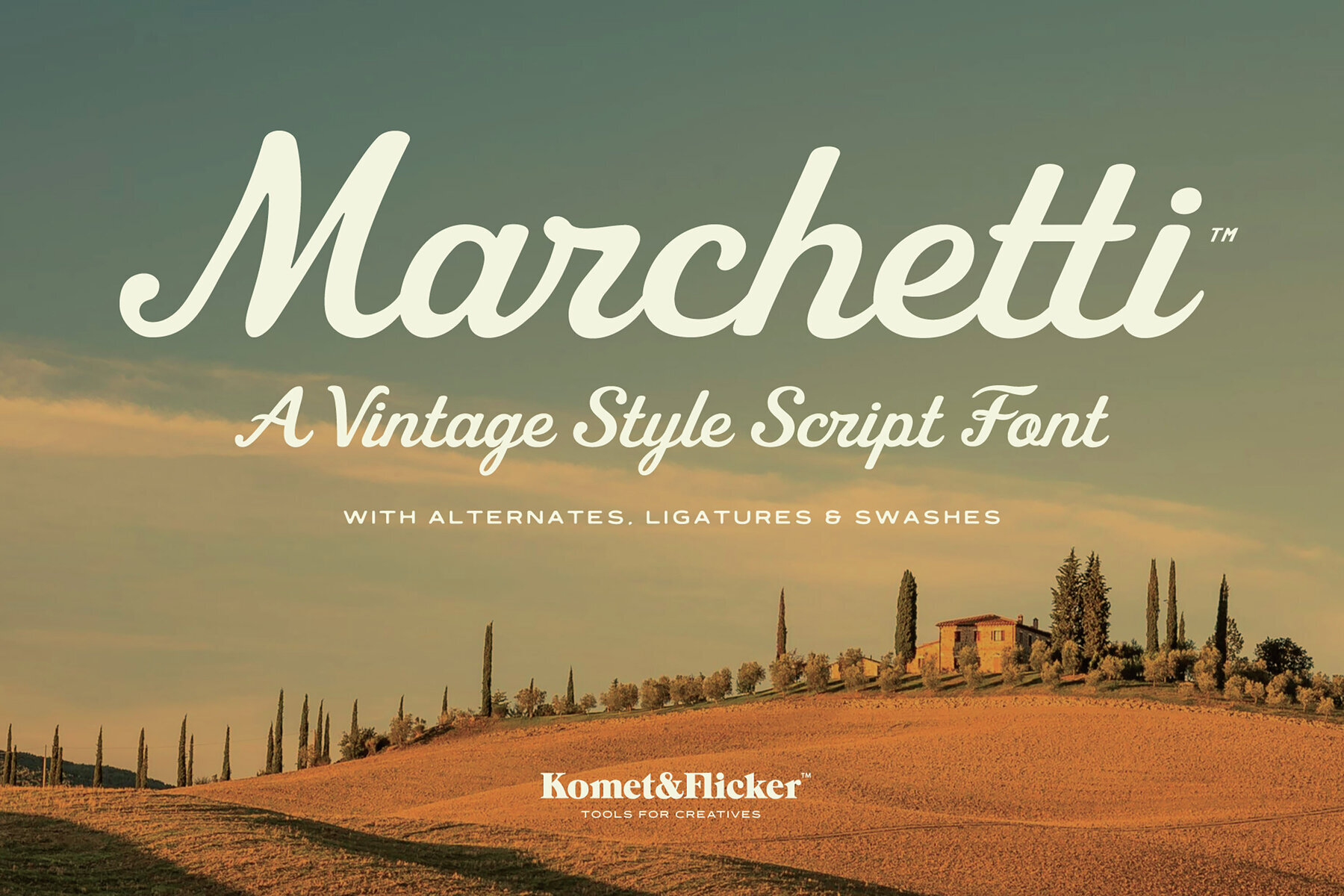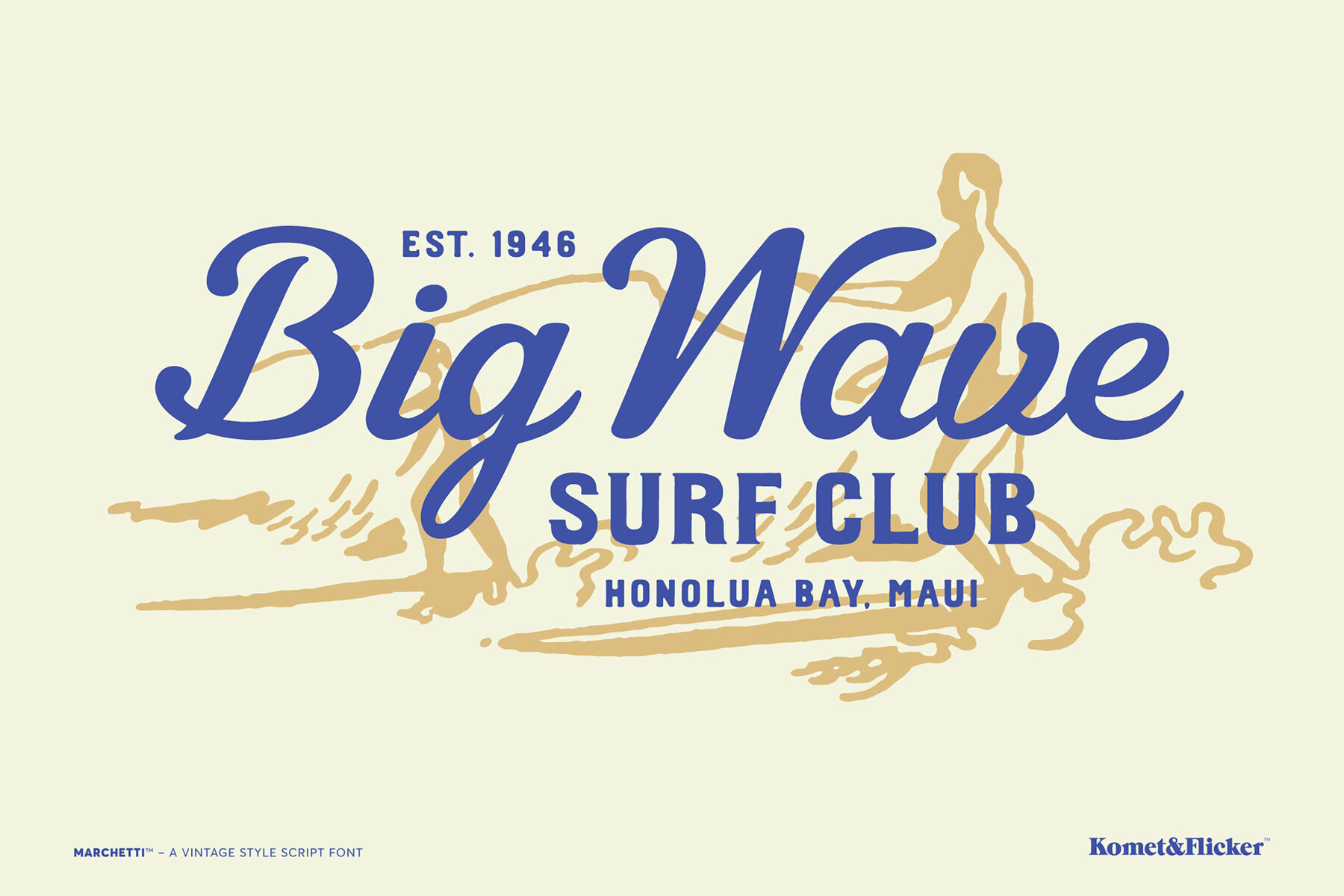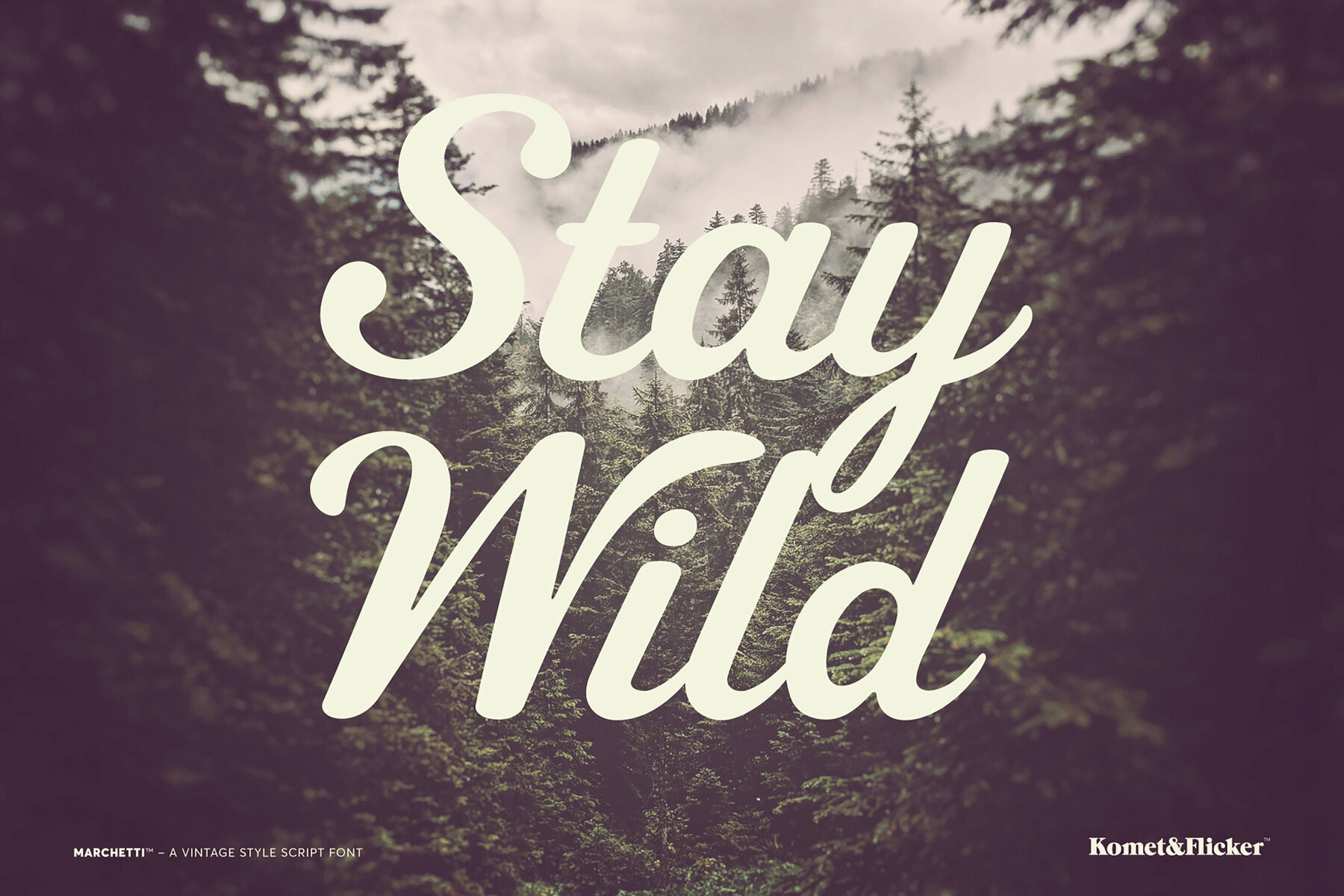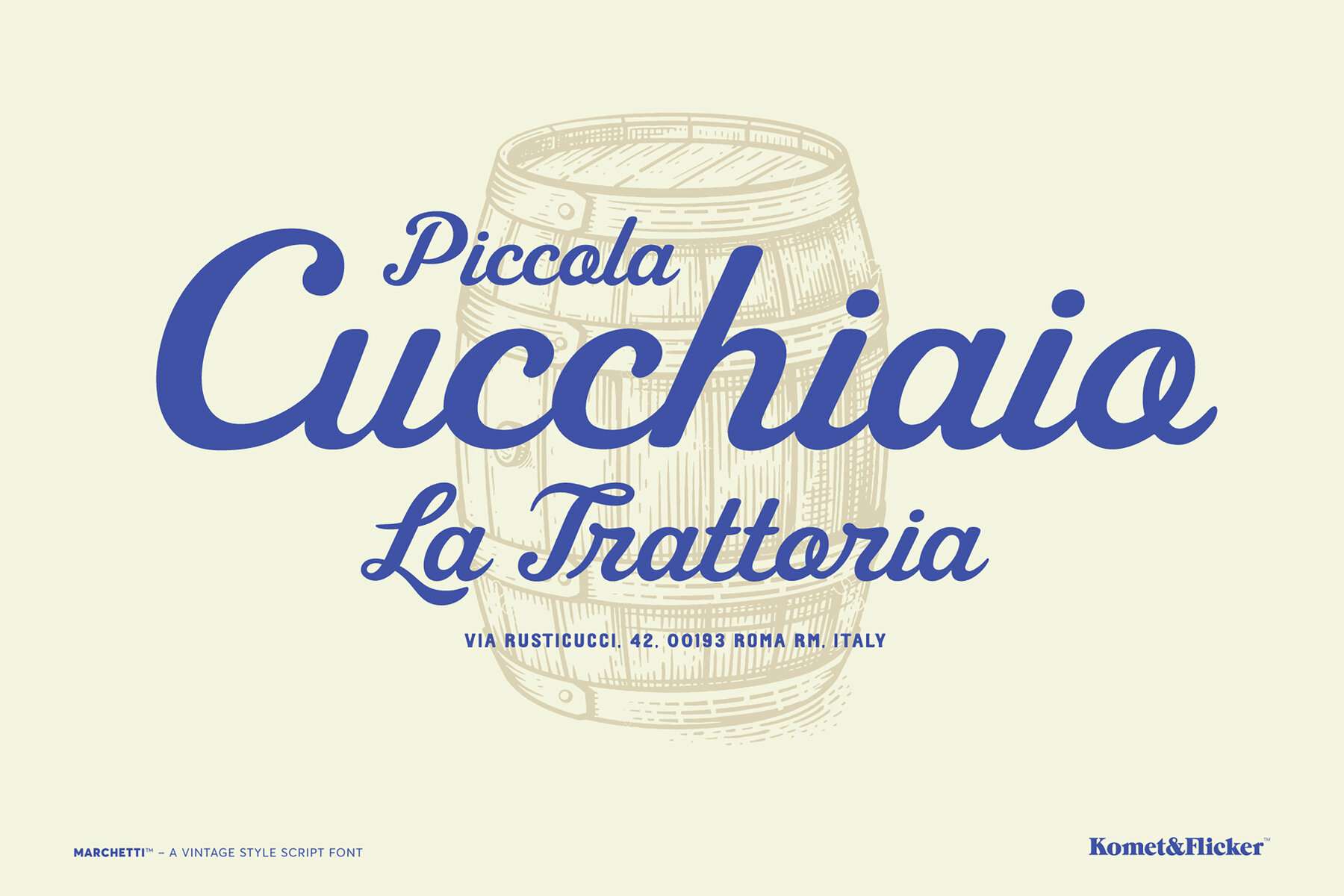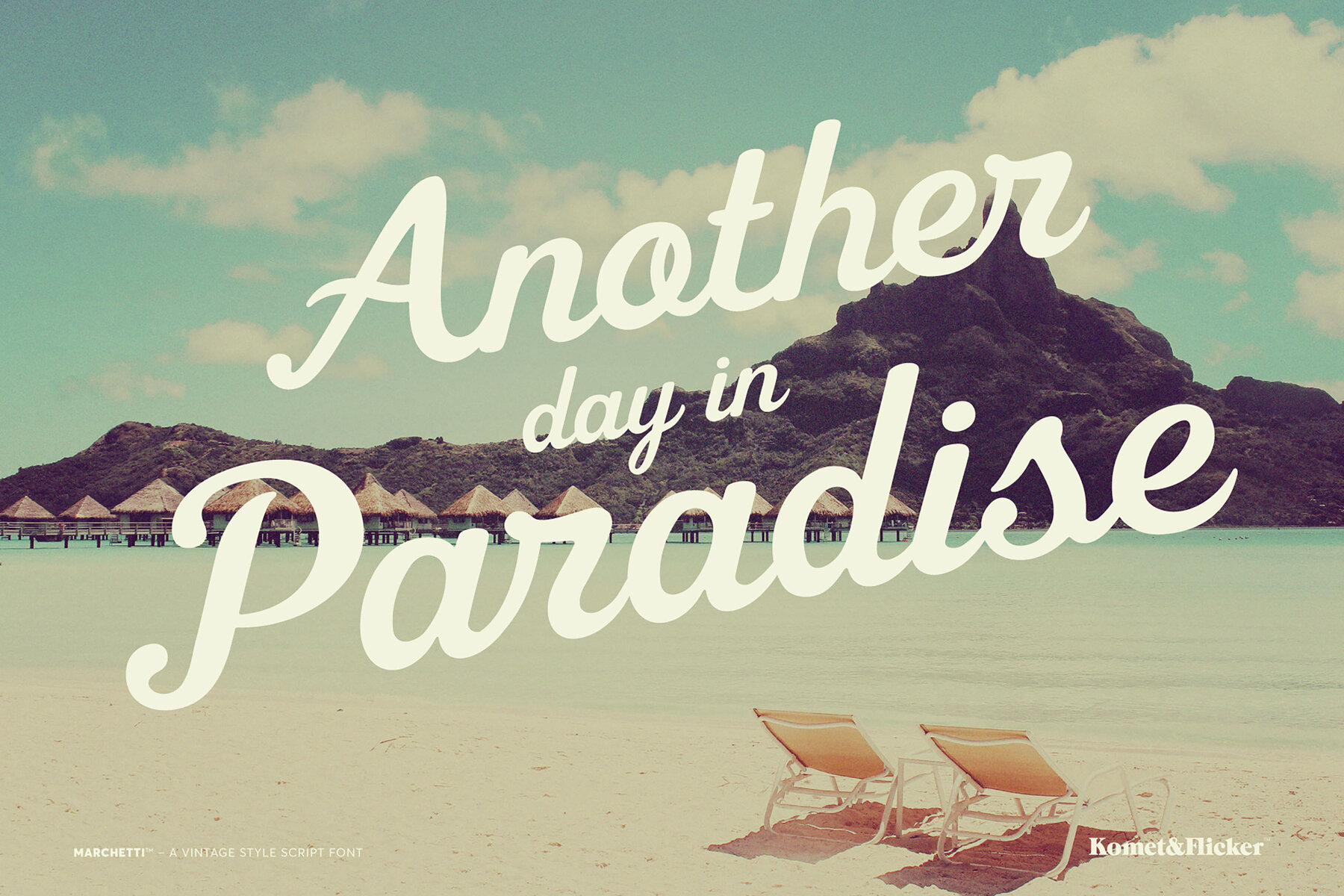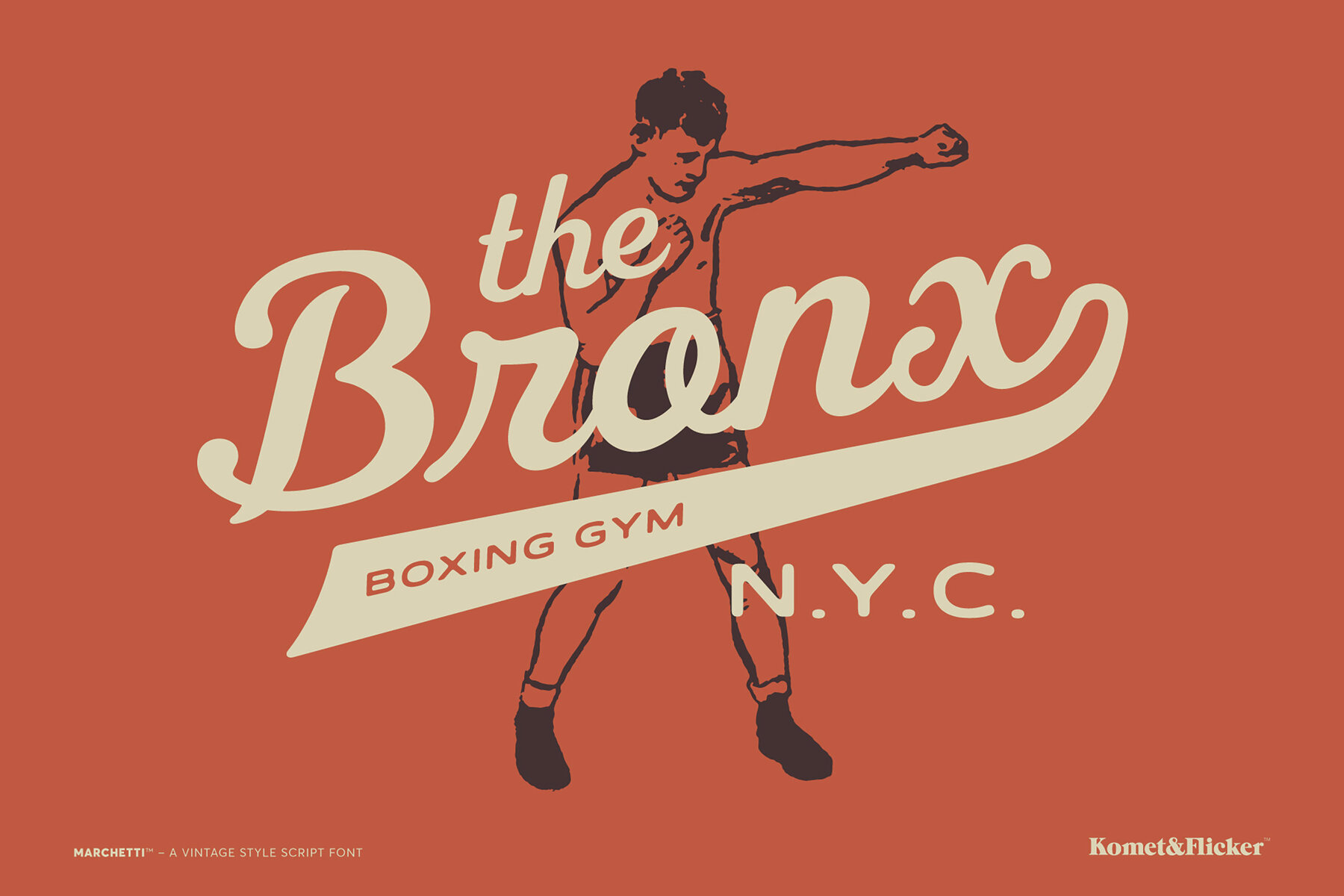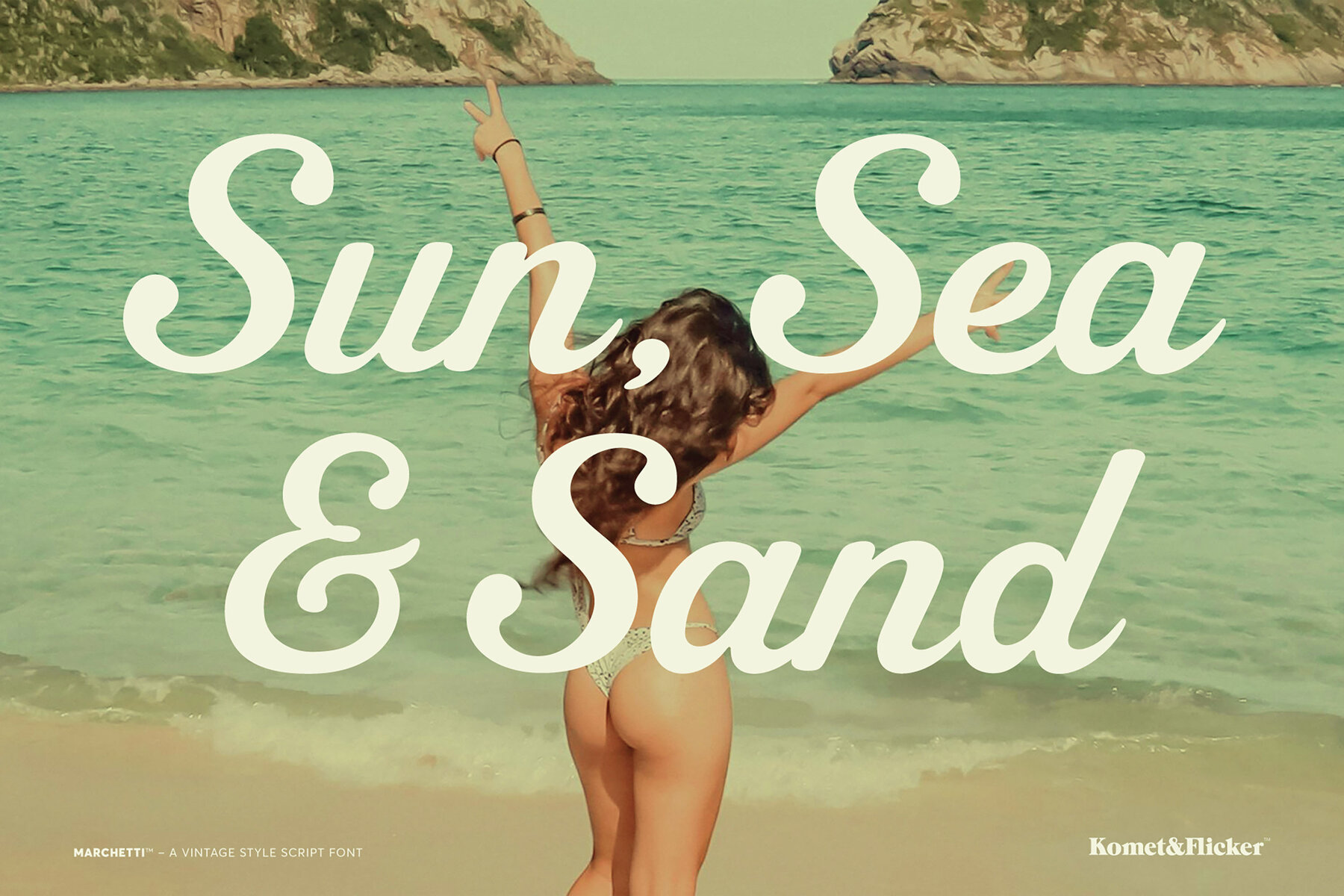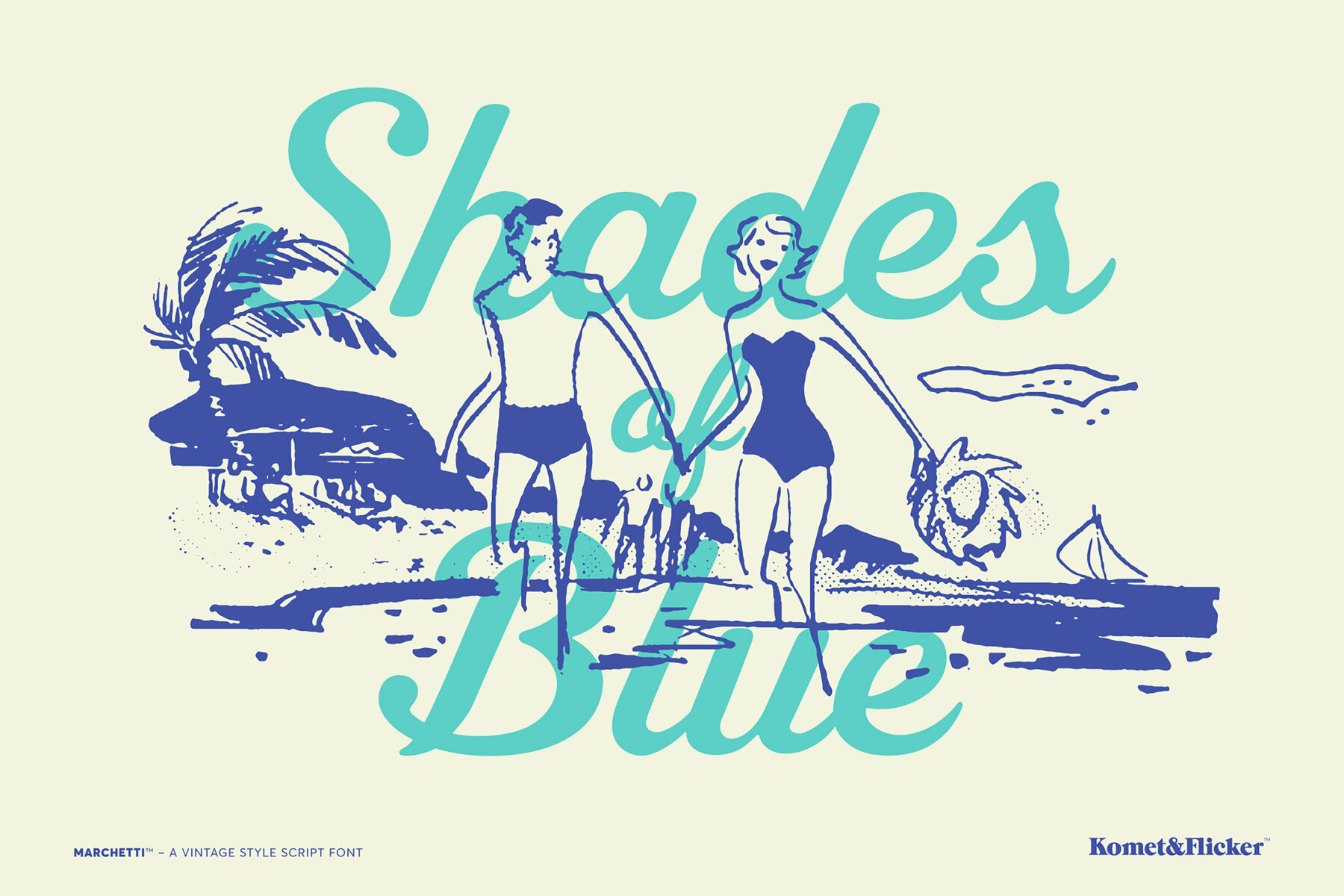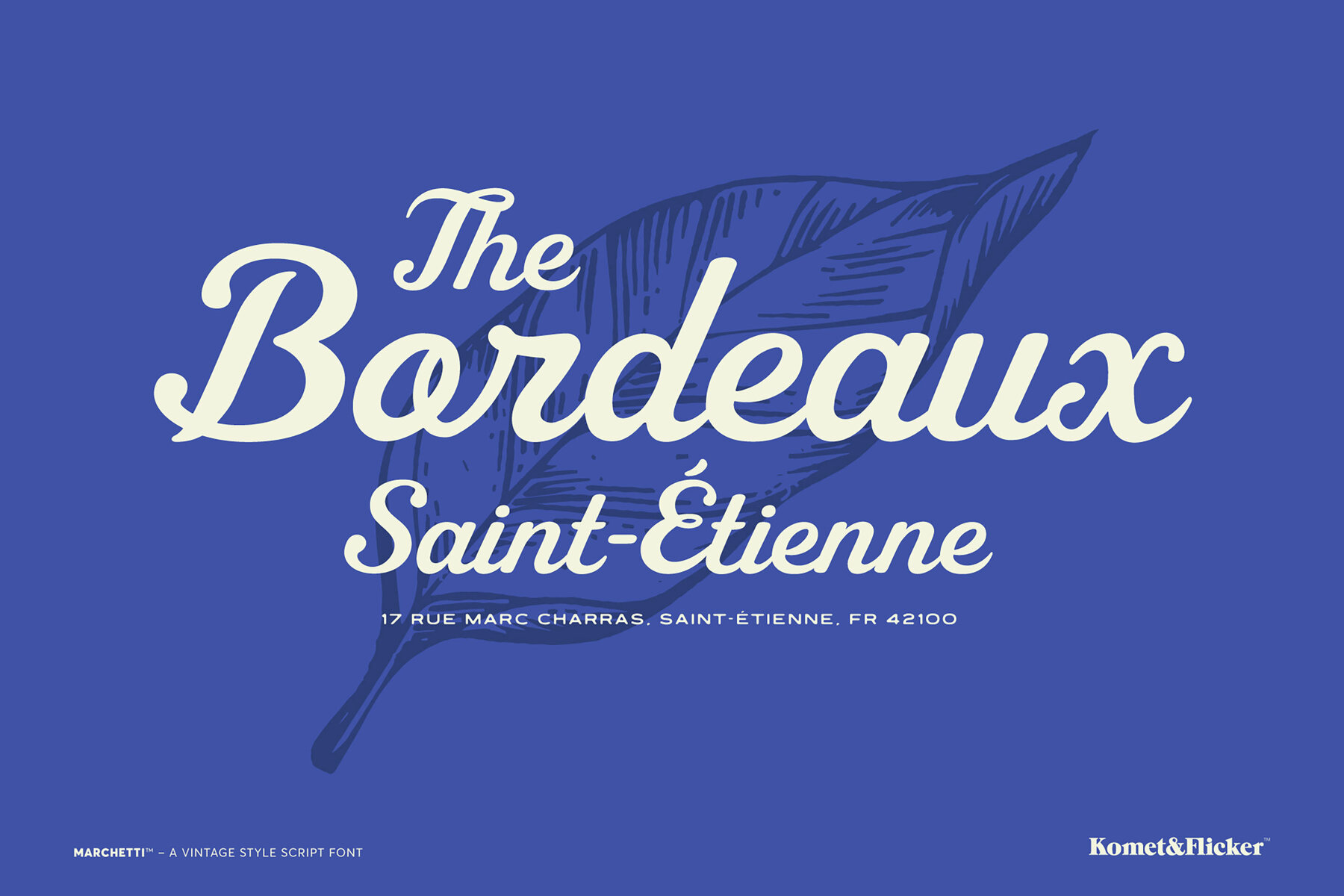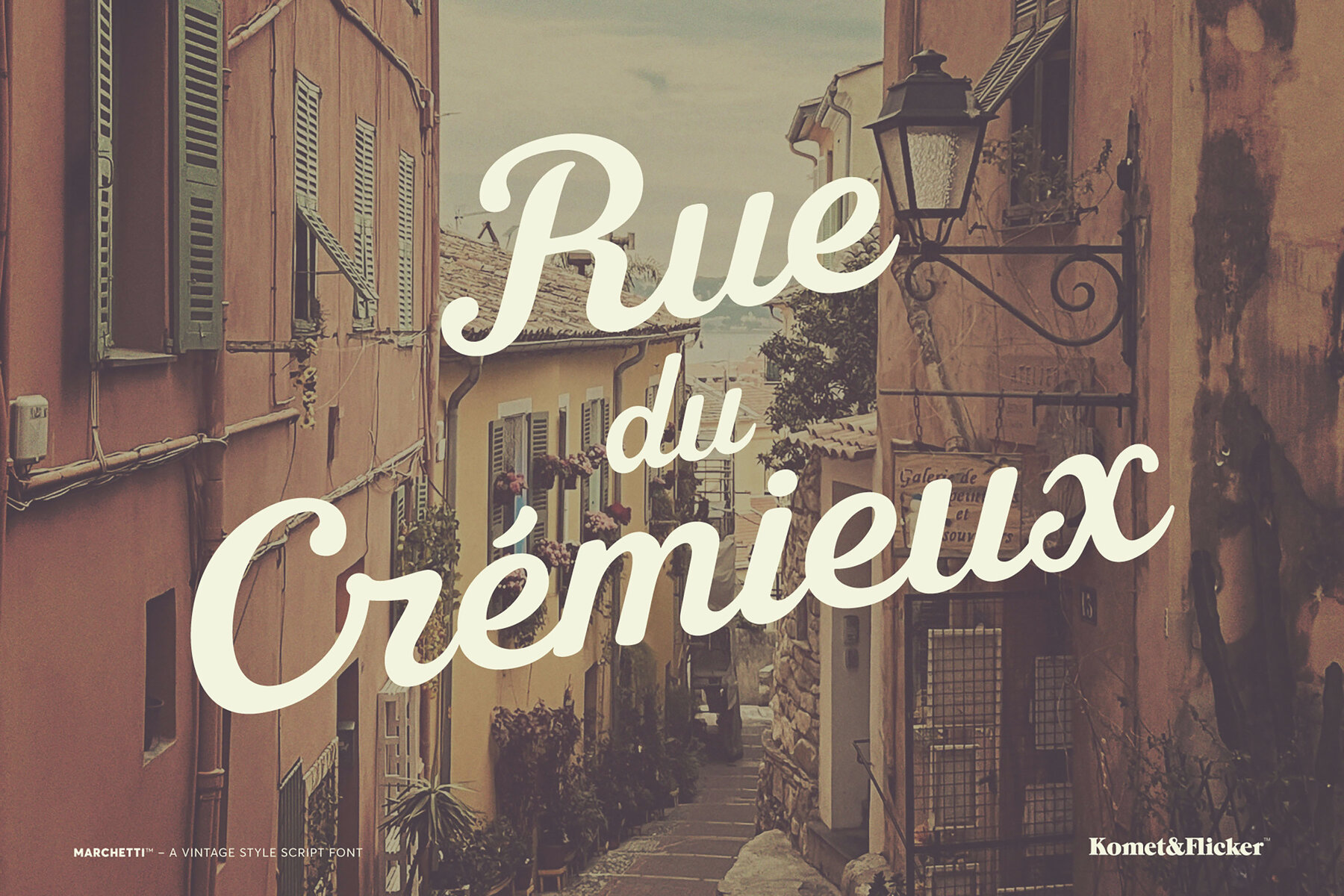
Marchetti Font
Marchetti Script
Introducing Marchetti, a vintage-style script font that effortlessly captures the charm of European cafes and the relaxed vibe of tropical beaches. Whether you’re crafting classic sports-themed graphics or designing for your next outdoor adventure, Marchetti adds a touch of sophistication and warmth. With its unique character set, this font includes 19 custom ligatures, 3 custom swash letters, and 9 additional swashes that beautifully complement all lowercase letters, giving your designs a polished finish. Elevate your design game with Marchetti, where vintage flair meets modern creativity. Perfect for any project that calls for a touch of elegance and adventure. THIS FONT INCLUDES In Illustrator, the extra custom glyphs can easily be accessed in the "Type → Glyphs" panel. In Photoshop they can be accessed through "Type → Panels → Glyphs Panel".